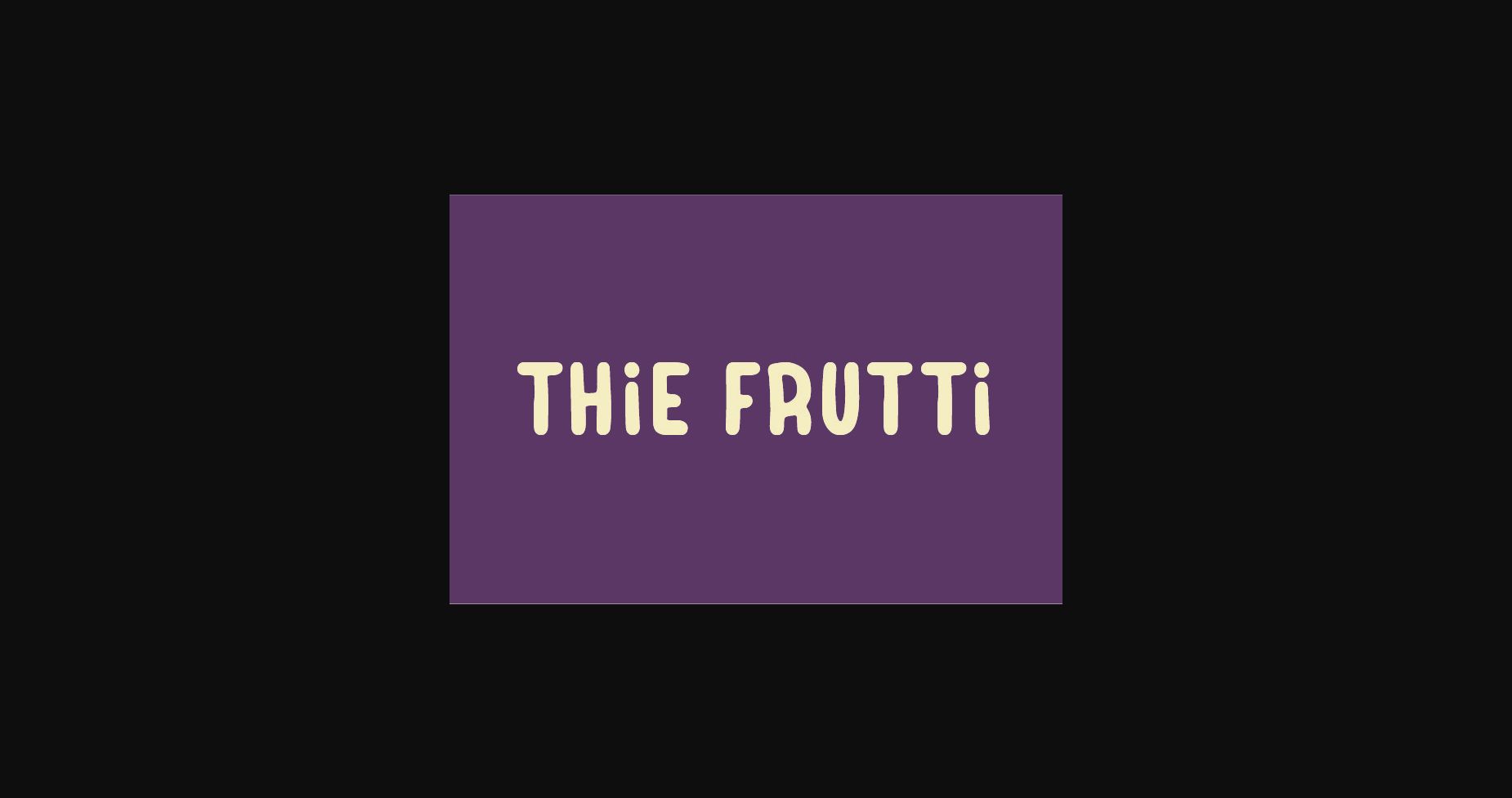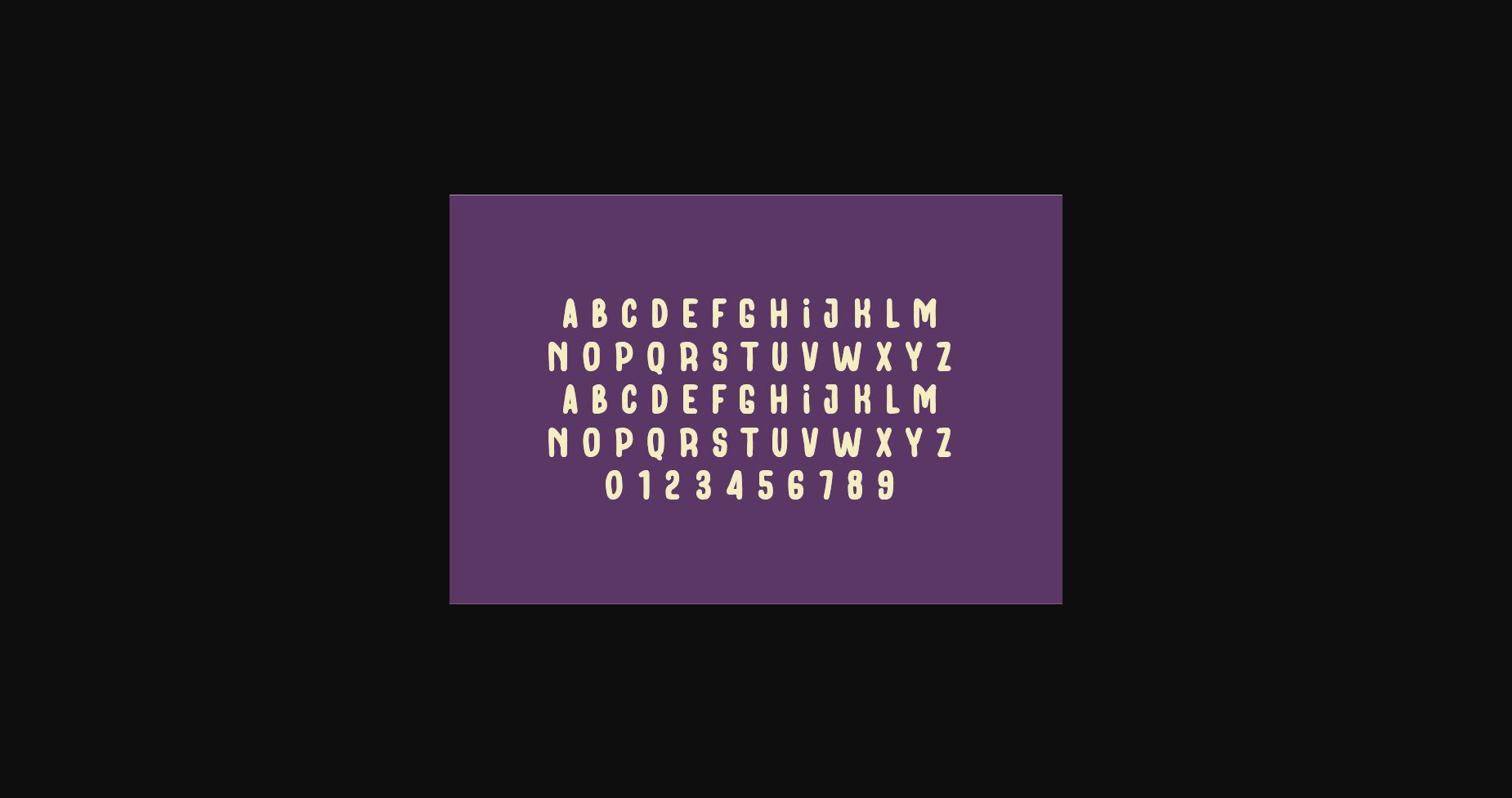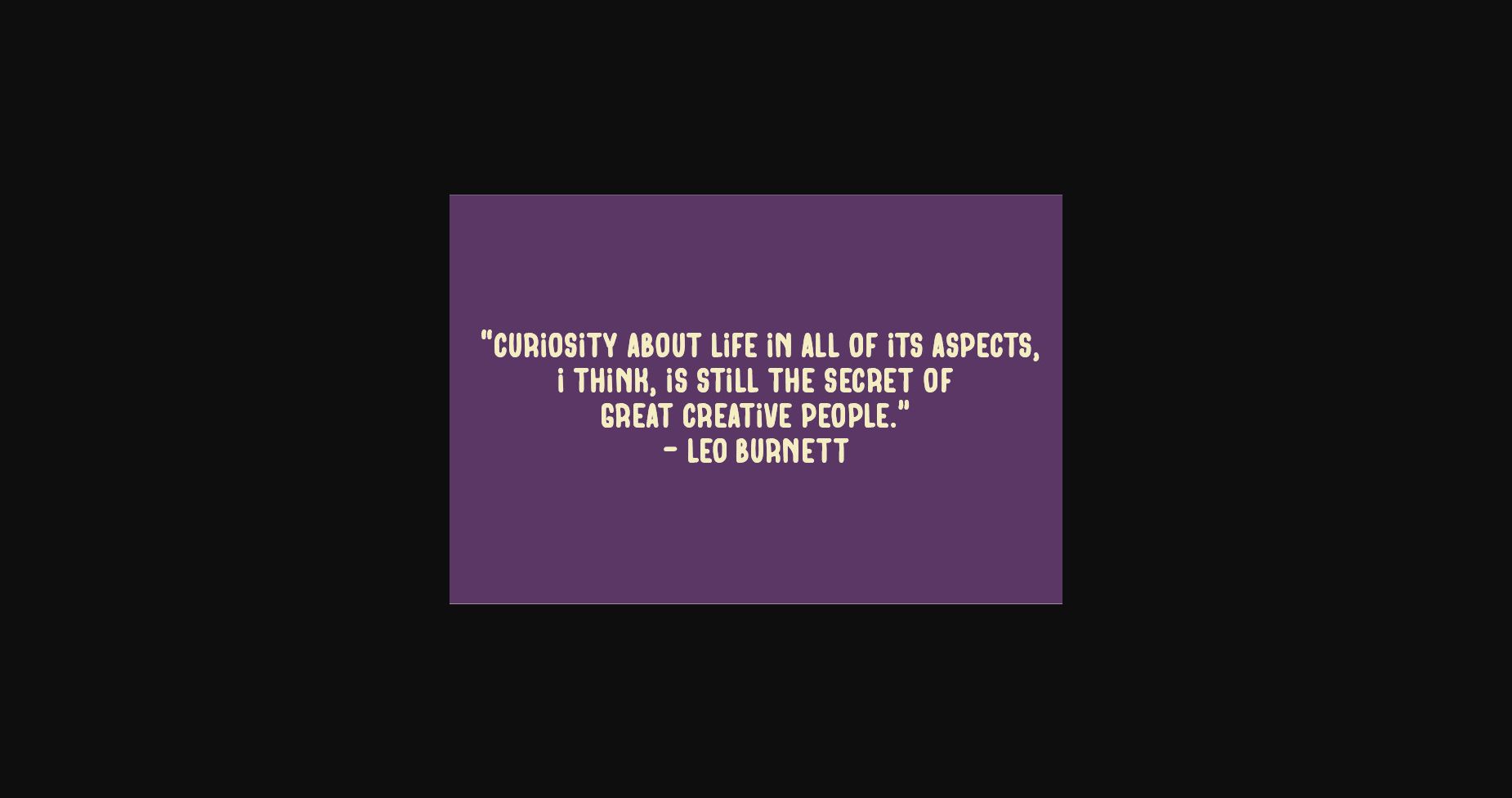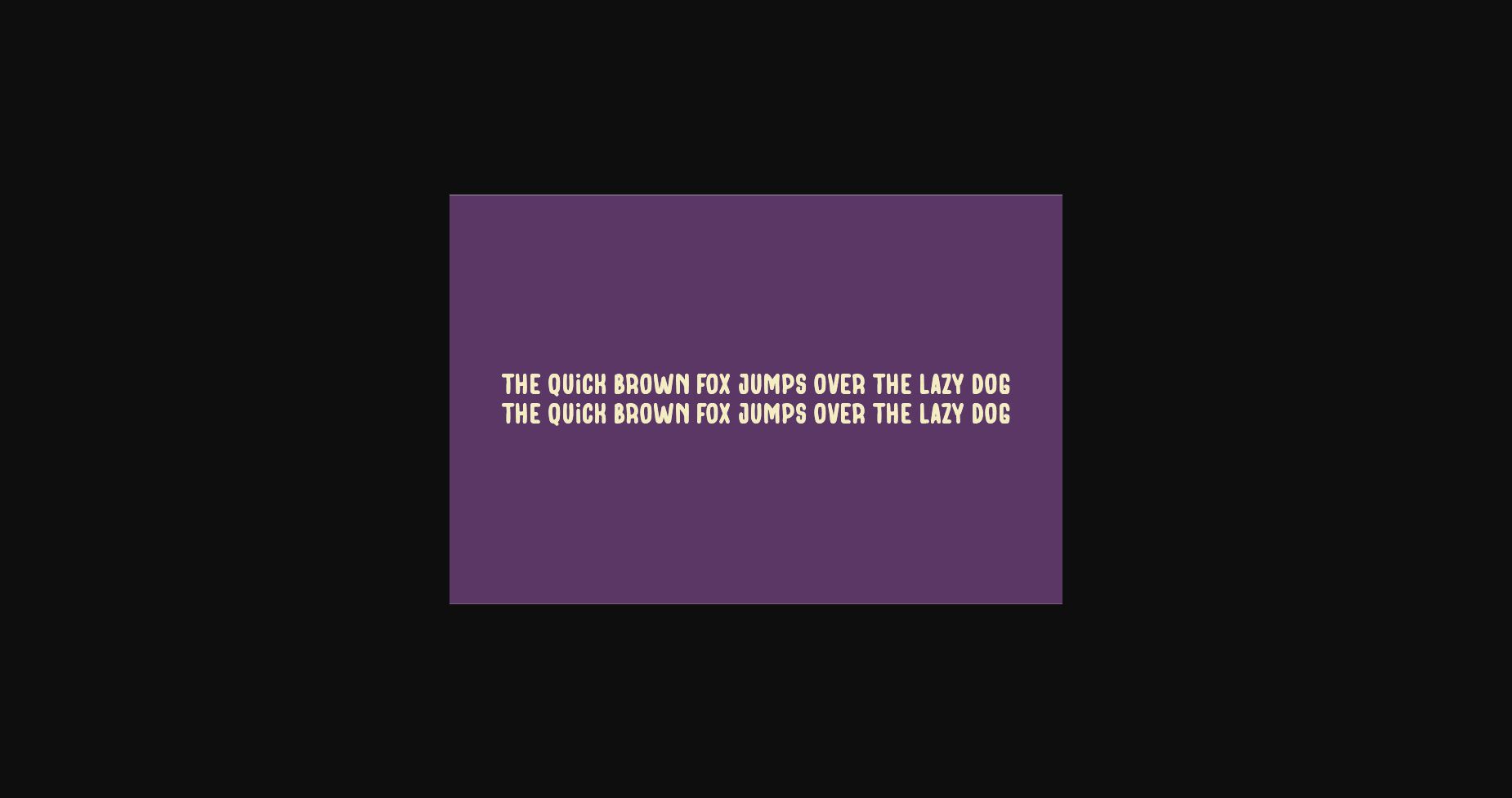
Thie Frutti Font
About Thie Frutti Font
Thie Frutti is a natural sans serif font that looks authentic and has a natural flair in every character. Use it to create unique designs such as quotes, notes, tees, adverts, and many more.